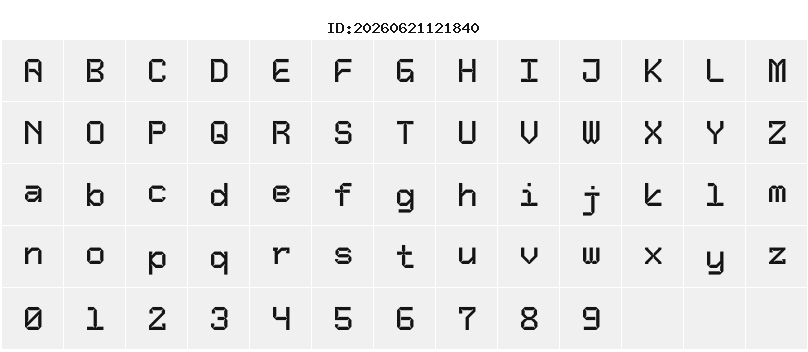
Acro Mono Preview
• Font Name: Acro Mono
• Full Font Name: Acro Mono
About Acro Mono.ttf
Acro Mono.ttf is a modern, elegant sans-serif font designed for ultimate readability and visual harmony. Perfect for branding, headlines, web design, and print materials.